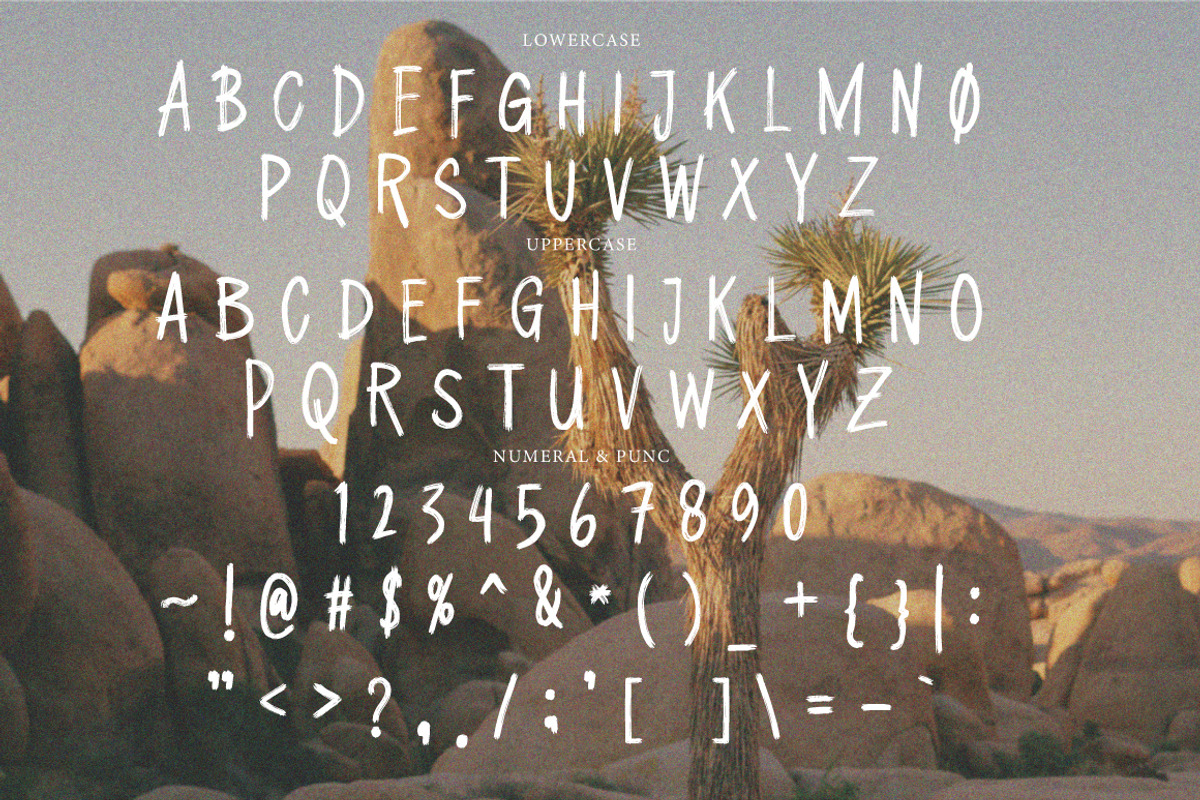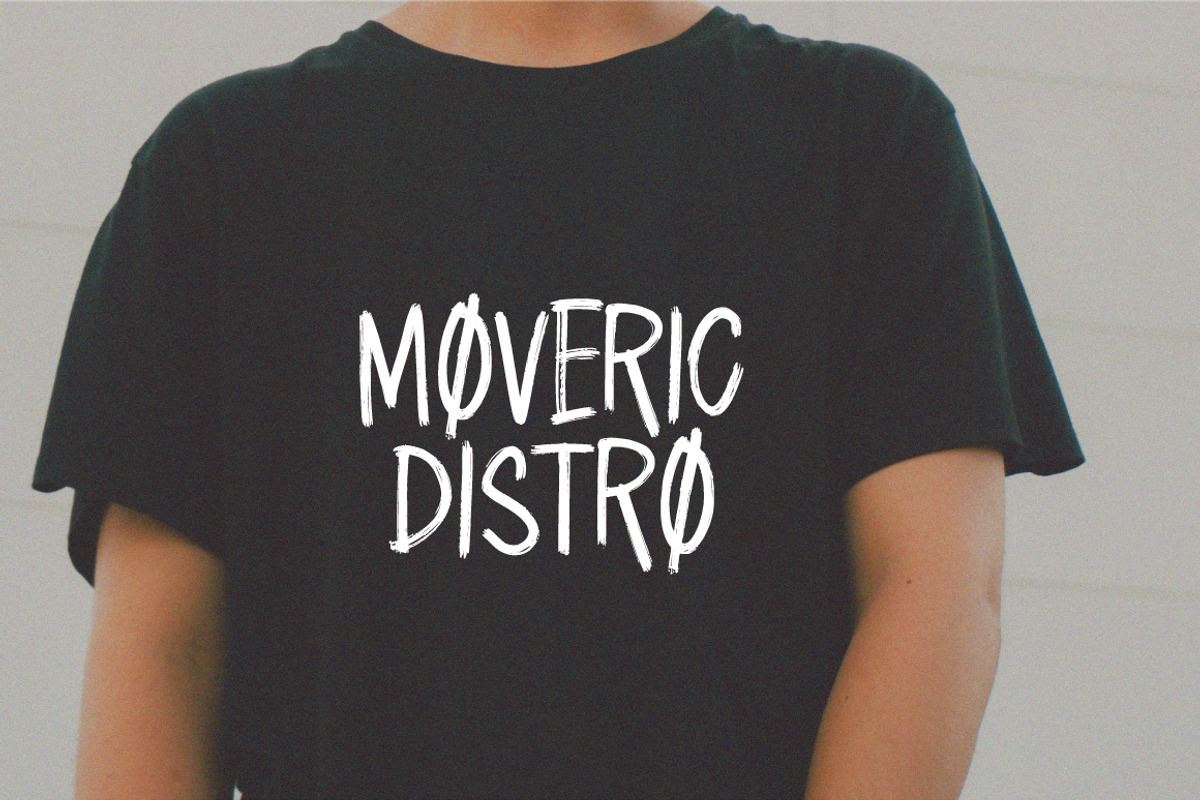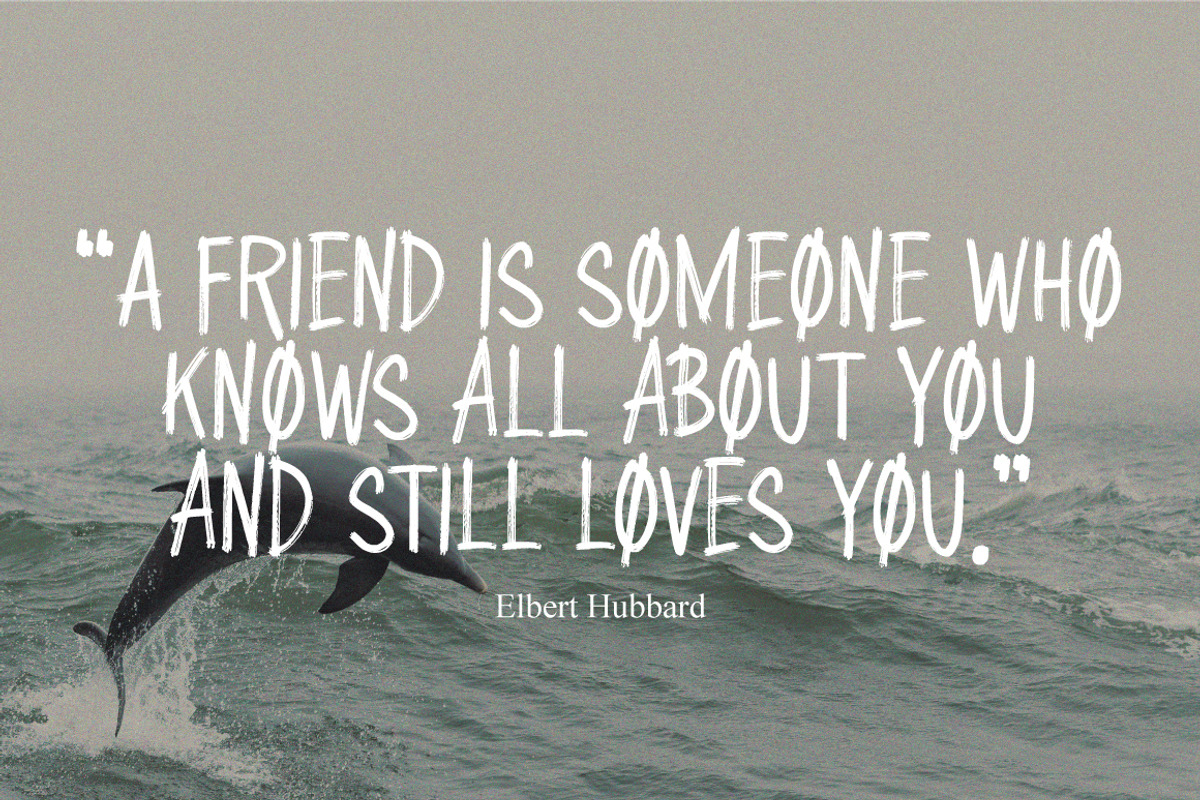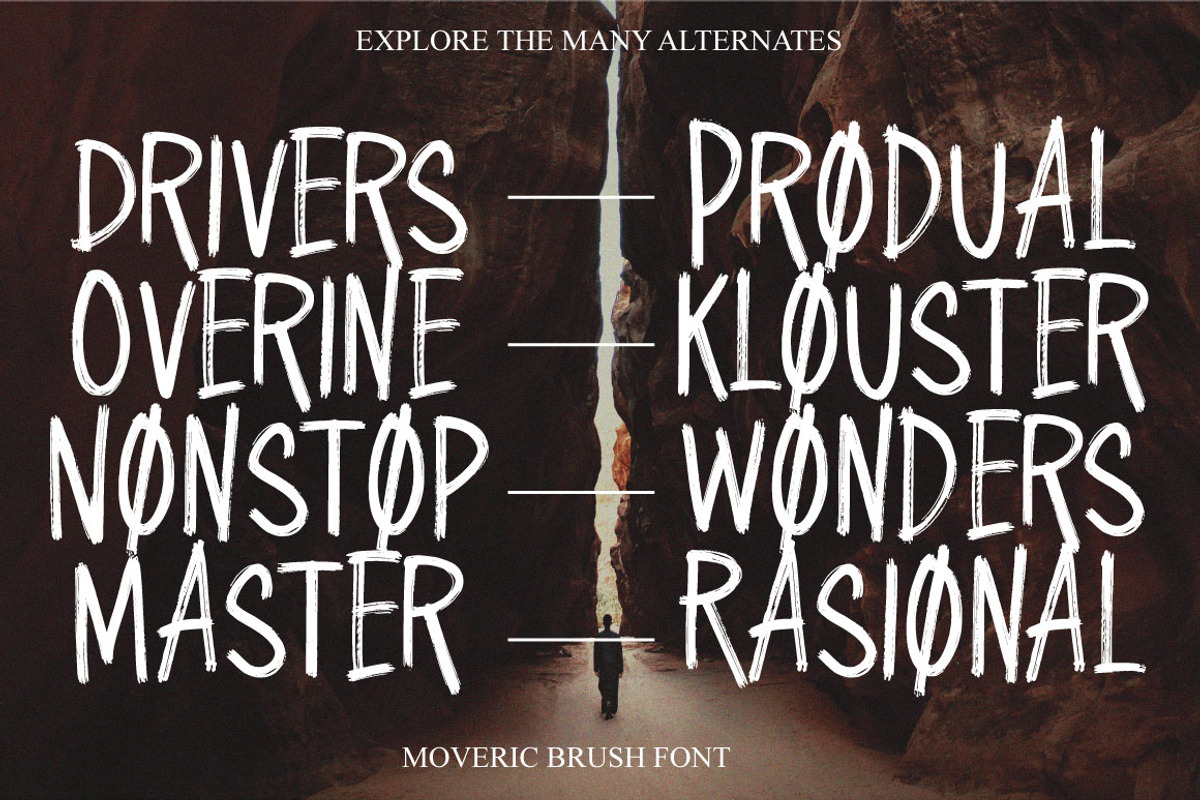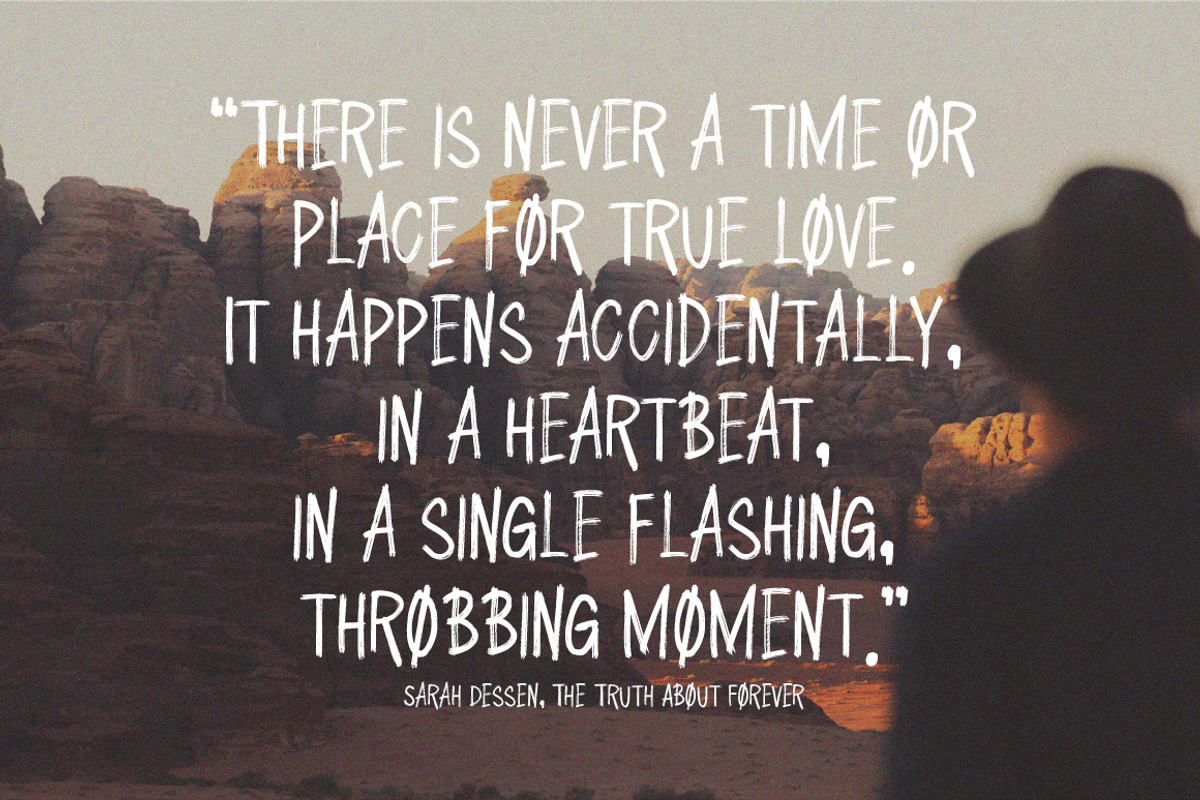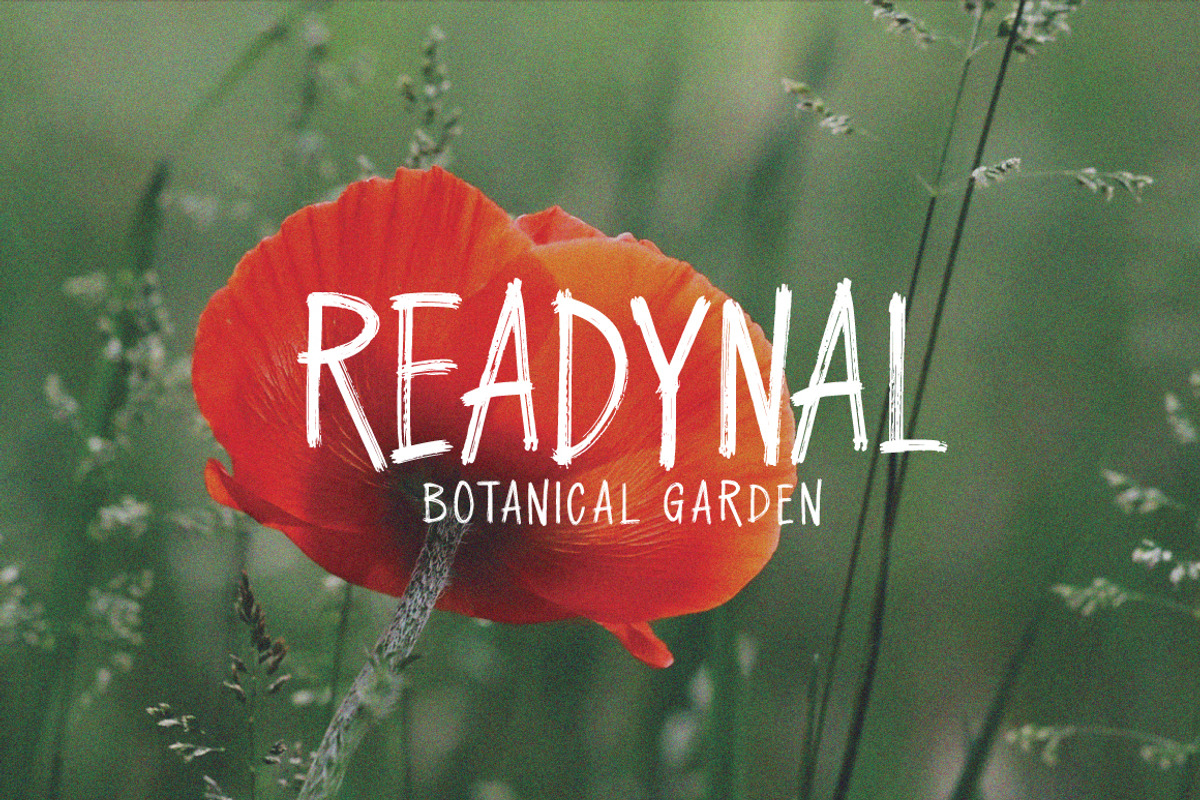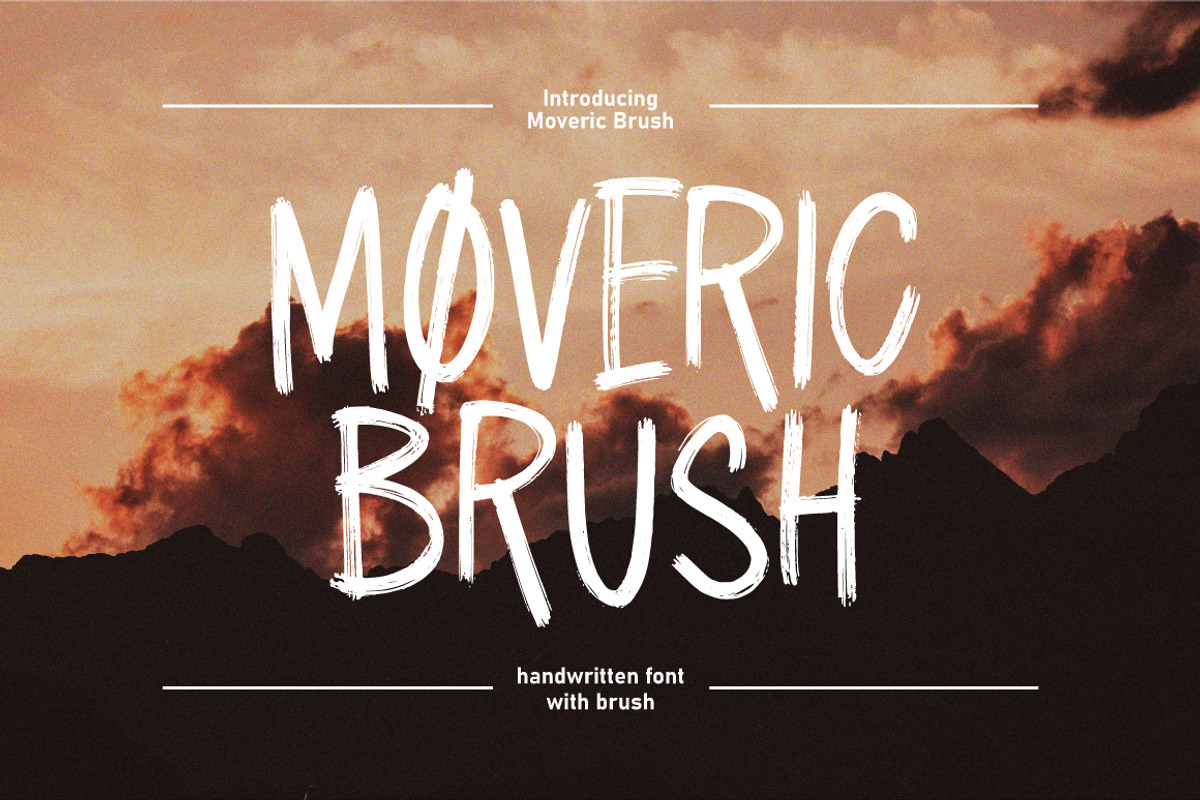
Moveric - Brush Font
Moveric Brush with a handmade Signature style, decorative characters and a dancing baseline! So beautiful on invitation like greeting cards, branding materials, business cards, quotes, posters, and more!!
Moveric Brush come with 150+ glyphs. The alternative characters were divided into several Open Type features such as Swash, Stylistic Sets, Stylistic Alternates, and Ligature. The Open Type features can be accessed by using Open Type savvy programs such as Adobe Illustrator, Adobe InDesign, Adobe Photoshop Corel Draw X version, And Microsoft Word. And this Font has given PUA unicode (specially coded fonts). so that all the alternate characters can easily be accessed in full by a craftsman or designer.
- include Basic Latin A-Z and a-z
- Stylistic Set
- Glyphs 150+